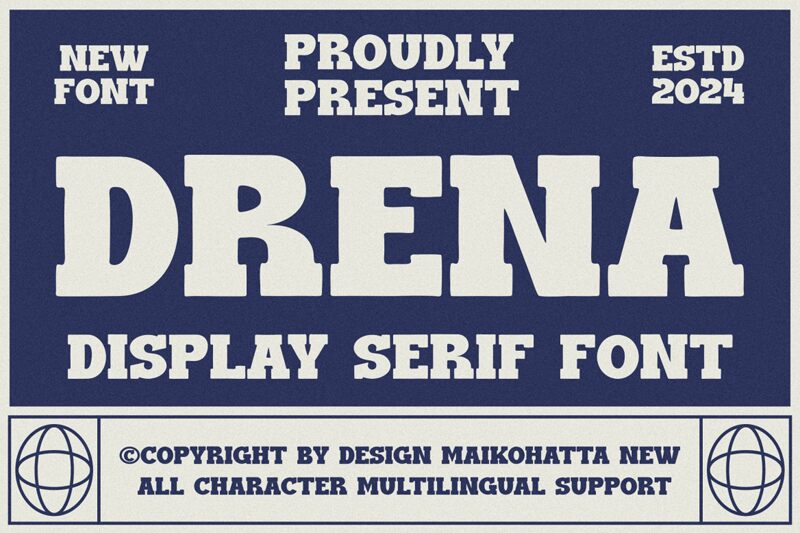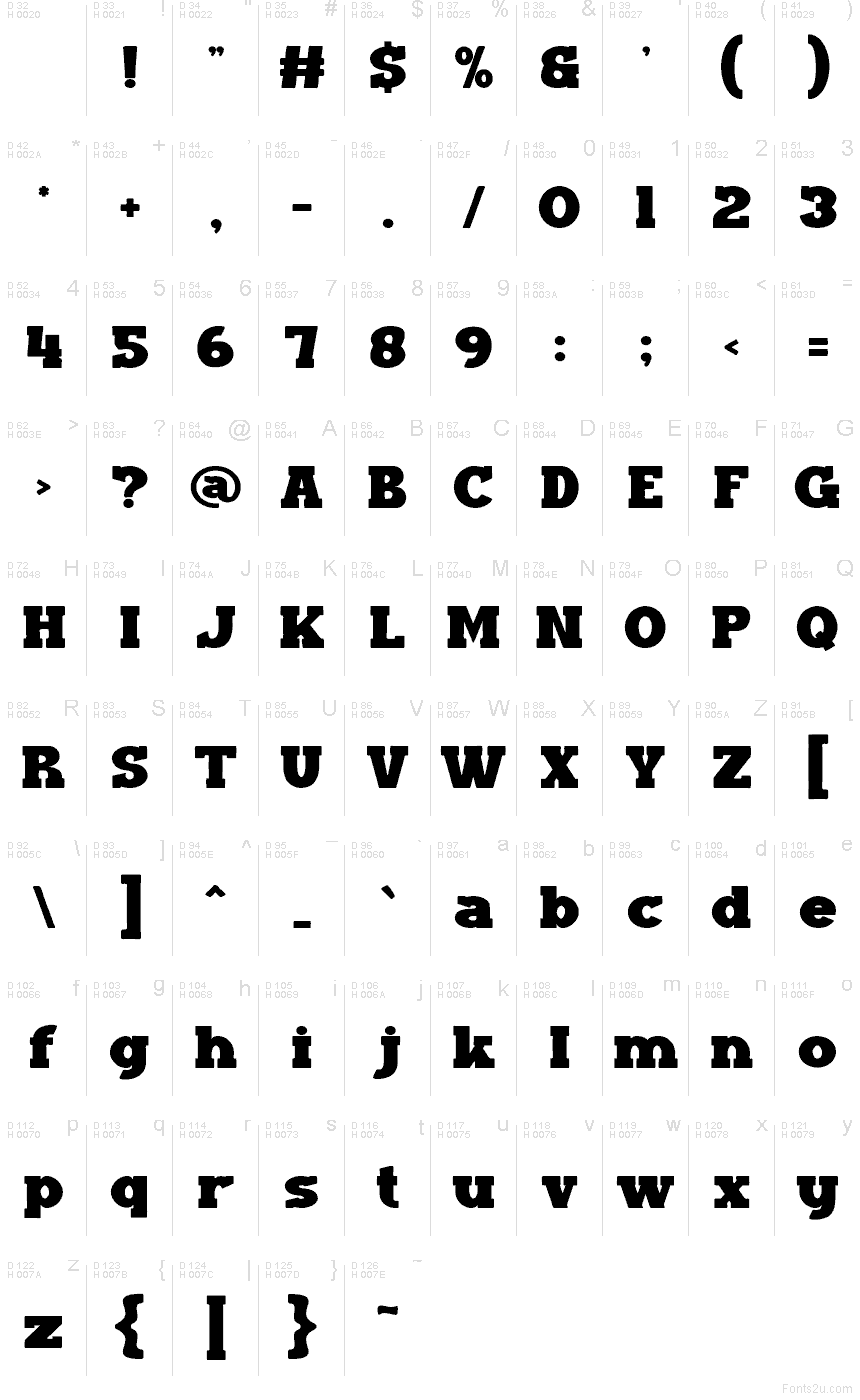
DRENA
Drena font by Gilang Ternadho of Maikohatta is a free slab serif typeface with the punch of a rubber stamp and the stance of vintage wood type. Thick, blocky letterforms press tightly together, creating a dense, inky texture that feels loud, grounded, and a bit gritty. The chunky serifs and compact spacing pull the eye instantly, giving headlines a strong, almost poster-like presence even in a single word.
Using Drena, bold titles, beer labels, band posters, vintage-inspired logos, packaging, T‑shirts, and signage all gain a heavy, tactile voice. This free font thrives at large sizes where its weight and solid shapes can really show, while body text can be handled by a clean sans for contrast. Pair Drena with a light geometric sans or simple grotesk to keep layouts readable yet muscular.